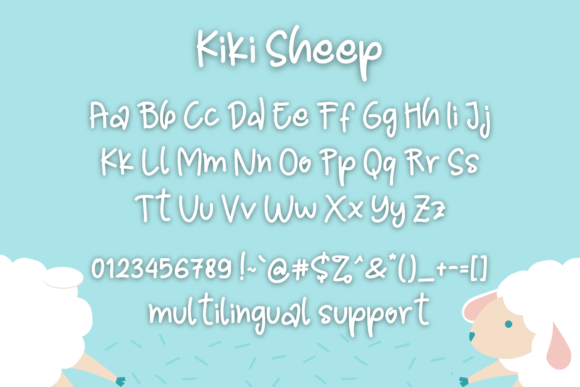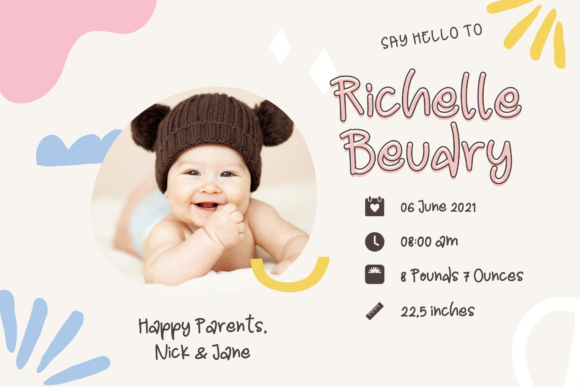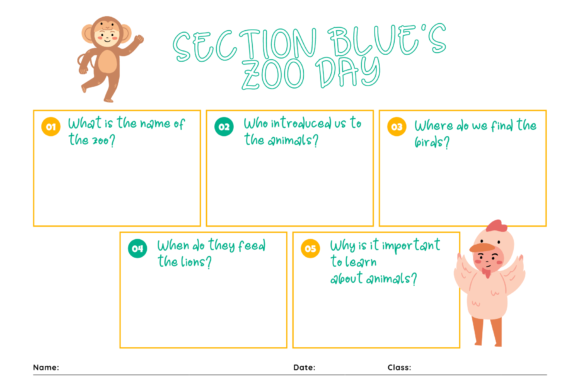
Introduction to Kiki Sheep Font
Remember that magical moment when you stumbled upon the perfect font for your creative project? For designers, finding that one special font can be a game-changer. It’s like stumbling upon a hidden treasure that elevates your design from ordinary to extraordinary.
One such treasure is the Kiki Sheep Font, a charming display font that embodies the spirit of whimsy and playfulness. With its modern yet quirky style, this font is sure to transport your designs into a sweet and magical world. Whether you’re working on a project that requires a touch of elegance or a dash of fun, the Kiki Sheep Font is an invaluable design resource that’s sure to deliver.
Key Features of Kiki Sheep Font
- Unique and playful design: The Kiki Sheep Font is a charming and whimsical font perfect for creative projects and design resources.
- High-quality design: The Kiki Sheep Font is designed with high-quality graphics, ensuring that it looks great on various mediums and resolutions.
- Perfect for illustrations and graphics: The Kiki Sheep Font is ideal for use in illustrations, graphics, and other creative projects where a playful and whimsical font is required.
Honest Review: Kiki Sheep Font
I recently came across the Kiki Sheep Font, and I must say, it’s a delightful addition to any design project. As a designer, I’m always on the lookout for high-quality fonts that can bring a unique touch to my creative endeavors.
- The overall design is playful and whimsical, perfect for projects that require a touch of personality.
However, I did encounter a few limitations ⚠️:
- The font may not be suitable for professional or corporate projects, as it’s quite informal.
- The font’s uniqueness can be both a blessing and a curse – while it’s great for creative projects, it may not be the best choice for projects where consistency is key.
Overall, I think the Kiki Sheep Font is a wonderful design resource that can add a touch of whimsy to any project. While it may not be suitable for every project, it’s definitely worth considering for those that require a playful, high-quality font.
Tips for Getting the Most Out of Kiki Sheep Font
Use the Kiki Sheep Font to create a transparent background effect by overlaying the font on a solid color or image. Experiment with different font sizes and styles to achieve unique and creative effects.
The Kiki Sheep Font is ideal for creative projects such as posters, flyers, and social media graphics. Its high-quality design makes it perfect for a variety of applications, from casual to professional use.